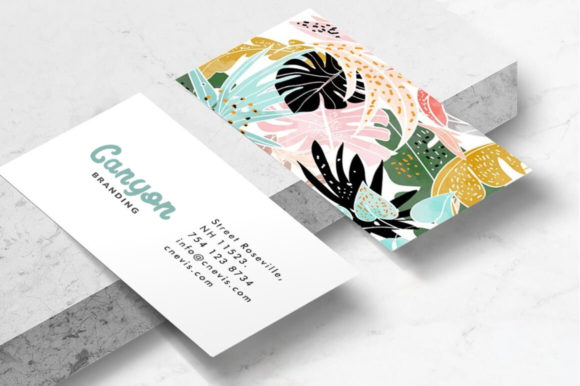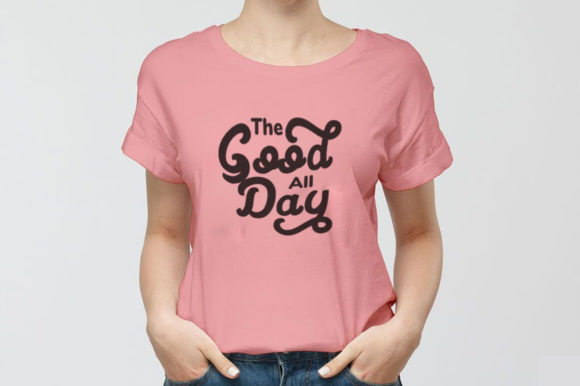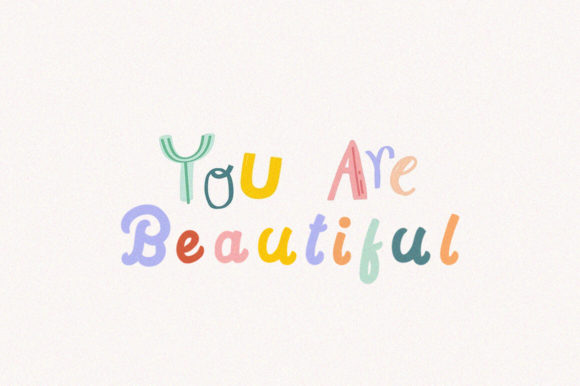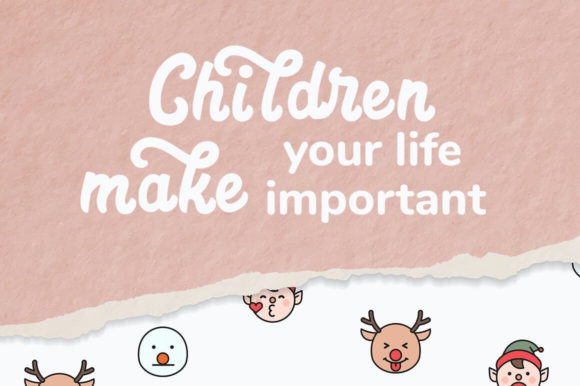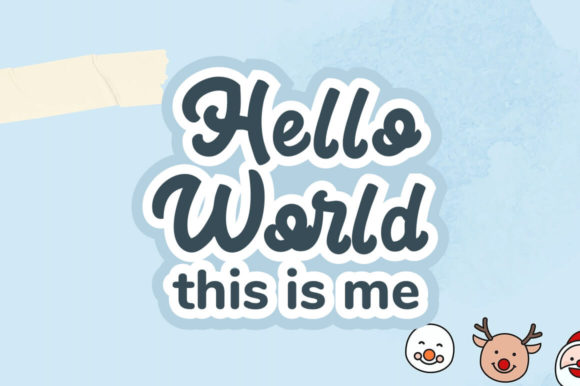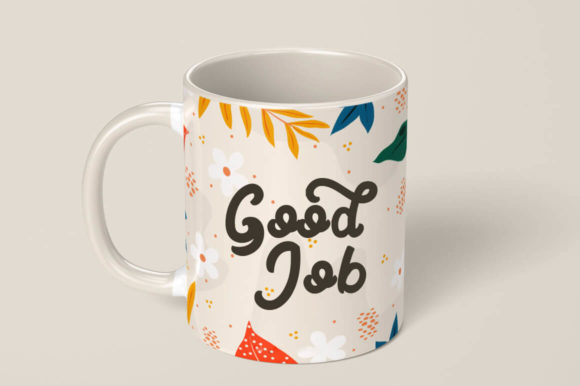
Adegail Font: The Perfect Addition to Your Design Arsenal
Are you tired of using the same old fonts in your designs? Look no further than Adegail, a brushed and fun handwritten font that’s sure to capture your heart. With its incredibly distinct and timeless style, Adegail is the perfect addition to your design arsenal. In this article, we’ll dive into the world of Adegail and explore its features, benefits, and uses.
What is Adegail Font?
Adegail is a unique and charming handwritten font that’s perfect for designers and crafters looking to add a personal touch to their work. Its brushed texture and fun, playful style make it an excellent choice for a wide range of design projects, from wedding invitations and branding materials to social media graphics and more.
Key Features of Adegail Font
- Brushed Texture: Adegail’s brushed texture gives it a distinctive, hand-crafted feel that’s perfect for creating unique and eye-catching designs.
- Handwritten Style: Adegail’s handwritten style is both fun and elegant, making it suitable for a wide range of design projects.
- Distinctive and Timeless: Adegail’s incredibly distinct and timeless style ensures that your designs will stand out from the crowd and remain relevant for years to come.
Benefits of Using Adegail Font
So why choose Adegail for your design projects? Here are just a few benefits of using this amazing font:
- Easy to Read: Adegail is incredibly easy to read, making it perfect for body text and headings.
- Versatile: Adegail is suitable for a wide range of design projects, from formal events to casual social media graphics.
- Unique: Adegail’s distinctive style ensures that your designs will stand out from the crowd and grab attention.
Use Cases for Adegail Font
So what can you use Adegail for? Here are just a few ideas to get you started:
- Wedding Invitations: Adegail is perfect for creating beautiful, unique wedding invitations that set the tone for your special day.
- Branding Materials: Use Adegail to create eye-catching branding materials, such as business cards, letterheads, and more.
- Social Media Graphics: Adegail is great for creating fun and engaging social media graphics that will help you stand out from the crowd.
- Stationery: Use Adegail to create beautiful stationery, such as notebooks, journals, and more.
Tips for Using Adegail Font
Here are a few tips for getting the most out of Adegail:
- Experiment with Colors: Adegail looks great in a wide range of colors, so don’t be afraid to experiment and find the perfect hue for your design.
- Mix and Match: Try pairing Adegail with other fonts to create a unique and eye-catching design.
- Play with Texture: Adegail’s brushed texture is a key part of its charm, so try experimenting with different textures and effects to add depth and interest to your design.
In conclusion, Adegail is a truly unique and versatile font that’s perfect for designers and crafters looking to add a personal touch to their work. With its incredibly distinct and timeless style, Adegail is sure to capture your heart and become a staple in your design arsenal. So why wait? Fall in love with Adegail today and start creating spectacular designs that will leave a lasting impression!